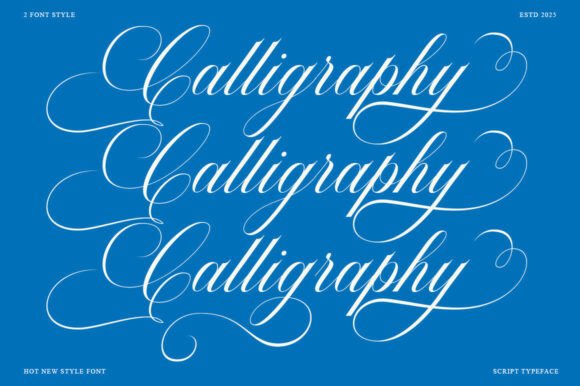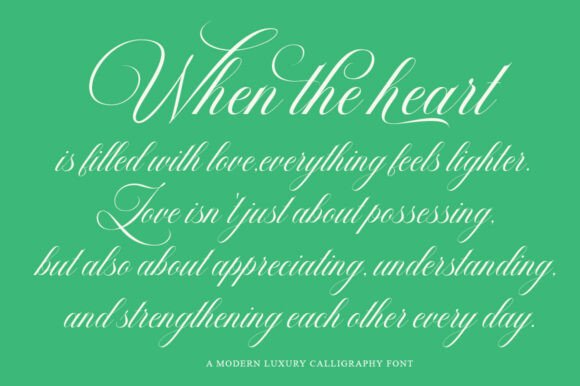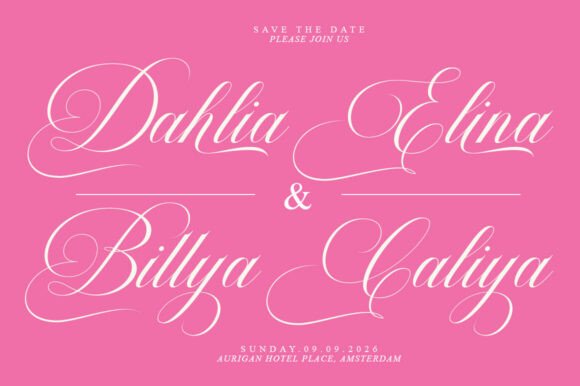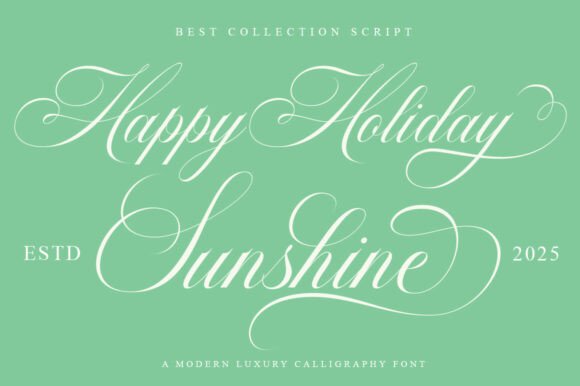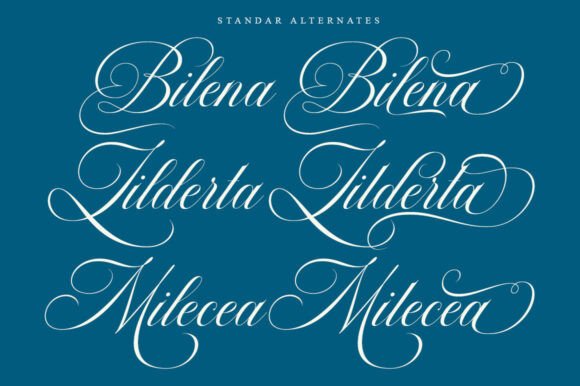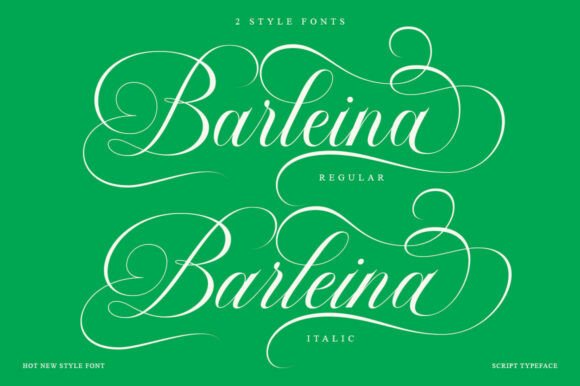
Unleash the Art of Elegant Expression
Imagine you’re holding a beautifully crafted wedding invitation, and as you read the words, you feel a rush of emotions and a sense of joy. The delicate curves and precise forms of the handwriting transport you to a world of romance and love. This is the magic of the written word, and it’s exactly what the Barleina Calligraphy Font is designed to capture.
As a designer, you’re constantly looking for ways to elevate your designs and make them stand out from the crowd. That’s where Barleina Calligraphy Font comes in – a stunning typeface that adds an elite, custom-made touch to your work. With its inherent femininity and well-honed rhythm, it’s the perfect choice for high-end branding, curated product labeling, and captivating editorial headlines.
Barleina Calligraphy Font Key Features
- Font Family: Barleina Calligraphy
- Unique Characteristics: Elegant, flowing script with a touch of whimsy, perfect for wedding invitations, calligraphy, and other creative projects.
- Language Support: Supports multiple languages, including Latin, Greek, and Cyrillic scripts.
Designer Review: Barleina Calligraphy Font
Overall, I’m really impressed with the Barleina Calligraphy Font. It’s a beautiful and elegant script font that’s perfect for any project that needs a touch of sophistication. ✨ Here are some things that work well:
- Expressive strokes: The font’s calligraphic style is well-executed, with smooth and flowing strokes that add to its elegance.
- Wide language support: Barleina Calligraphy Font supports a wide range of languages, making it a great choice for projects that require multilingual text.
- High-quality glyphs: The font’s glyphs are well-designed and detailed, with a high level of polish that’s noticeable even at small font sizes.
- Limited font weights: Barleina Calligraphy Font only comes in a few font weights, which may limit its versatility in certain design situations.
- No italic or oblique styles: While the font’s regular and bold styles are great, the lack of italic or oblique styles may make it less suitable for projects that require emphasis or contrast.
Overall, I think Barleina Calligraphy Font is a great choice for any designer looking for a high-quality, elegant script font. With its expressive strokes, wide language support, and high-quality glyphs, it’s a great addition to any font collection.
Getting the Most Out of Barleina Calligraphy
To get the most out of Barleina Calligraphy, experiment with different font sizes, colors, and styles to create a unique and eye-catching look. Use layer blending modes and effects to enhance the font’s appearance. Combine Barleina Calligraphy with other fonts and design elements to create a visually appealing design.
Barleina Calligraphy is ideal for:
Alternatives to Barleina Calligraphy Font
Great Vibes is a beautiful, elegant script font perfect for creating a vintage or bohemian feel. It’s ideal for use in titles, headings, and invitations. Great Vibes has a more fluid and organic feel compared to Barleina, making it suitable for a wide range of designs.
Comparison: Great Vibes has a more relaxed and casual feel, while Barleina is more refined and sophisticated.
Carolyna Pro is a modern calligraphy font that’s perfect for creating a luxurious and elegant look. It’s ideal for use in high-end branding, invitations, and wedding stationery. Carolyna Pro has a more refined and polished feel compared to Barleina, making it suitable for high-end designs.
Comparison: Carolyna Pro is more formal and polished, while Barleina is more playful and whimsical.
Alex Brush is a elegant script font that’s perfect for creating a sophisticated and refined look. It’s ideal for use in titles, headings, and branding. Alex Brush has a more delicate and refined feel compared to Barleina, making it suitable for a wide range of designs.
Q: What is the recommended font size for optimal readability with the Barleina Calligraphy Font?
The recommended font size for optimal readability with the Barleina Calligraphy Font is between 18-24 points, depending on the intended use and viewing distance. This will help ensure that the text remains legible and visually appealing, even at larger sizes.